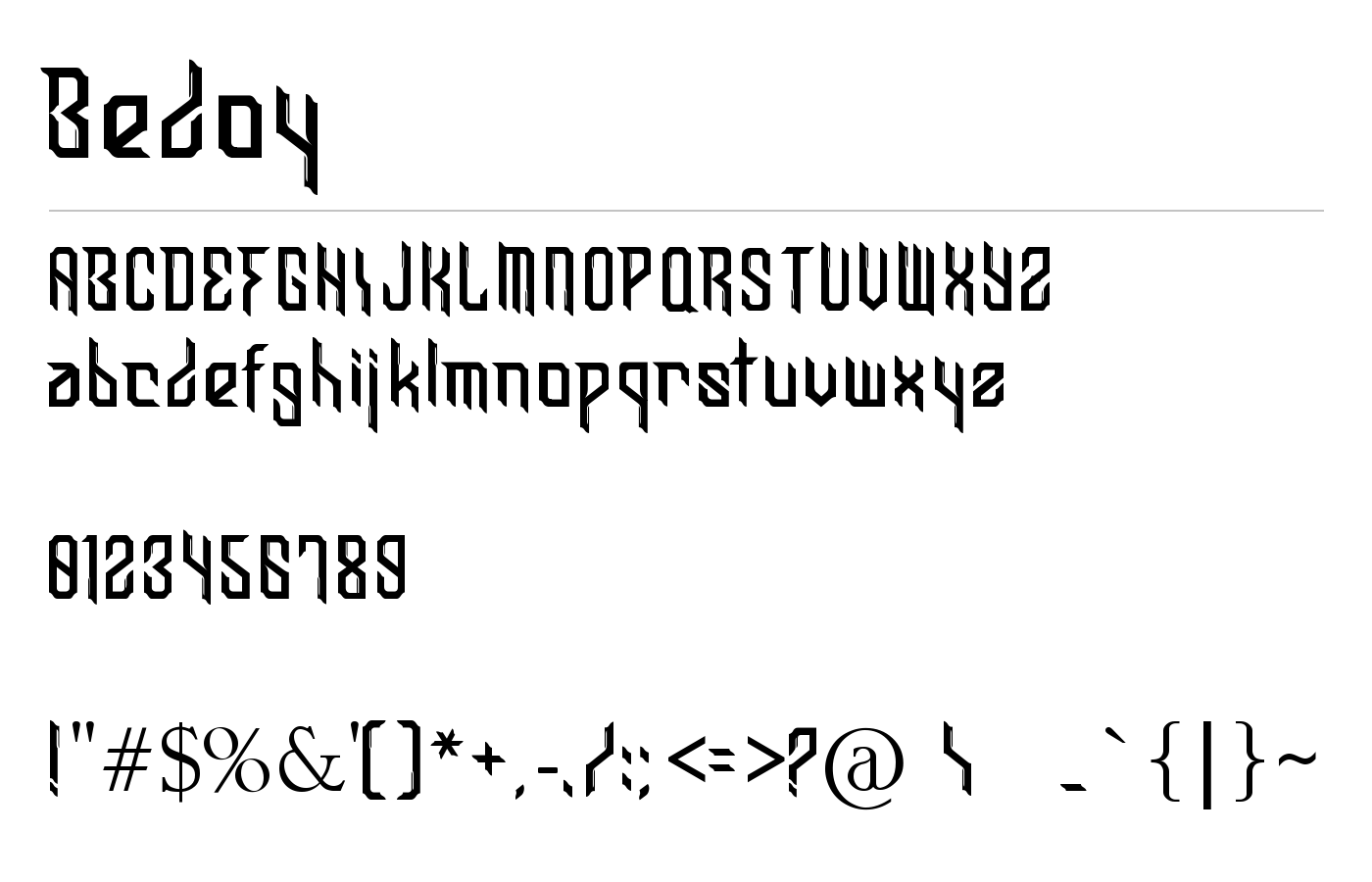
Bedoy is a striking, condensed serif font with a modern Gothic vibe, featuring sharp, angular strokes and high contrast between thick and thin lines. Its unique letterforms, including pointed serifs and distinctive characters, give it a bold, edgy personality perfect for eye-catching headlines, logos, and branding that aim to convey strength and sophistication. This font works well where a strong, dramatic impression is needed, especially in fashion, luxury, or editorial design.
Bedoy Font
About Bedoy Font